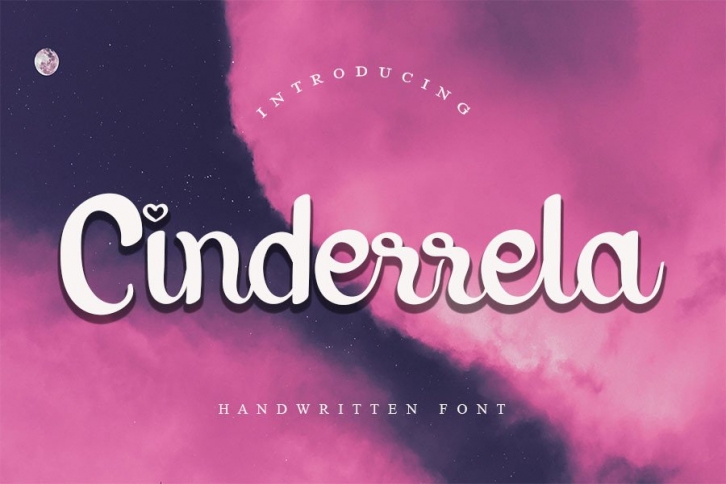
Cinderrella is a friendly handwritten font, carefully designed to become a true favorite. It maintains its classy calligraphic influences while feeling contemporary and fresh. Add it to your creative projects and make them outstanding!